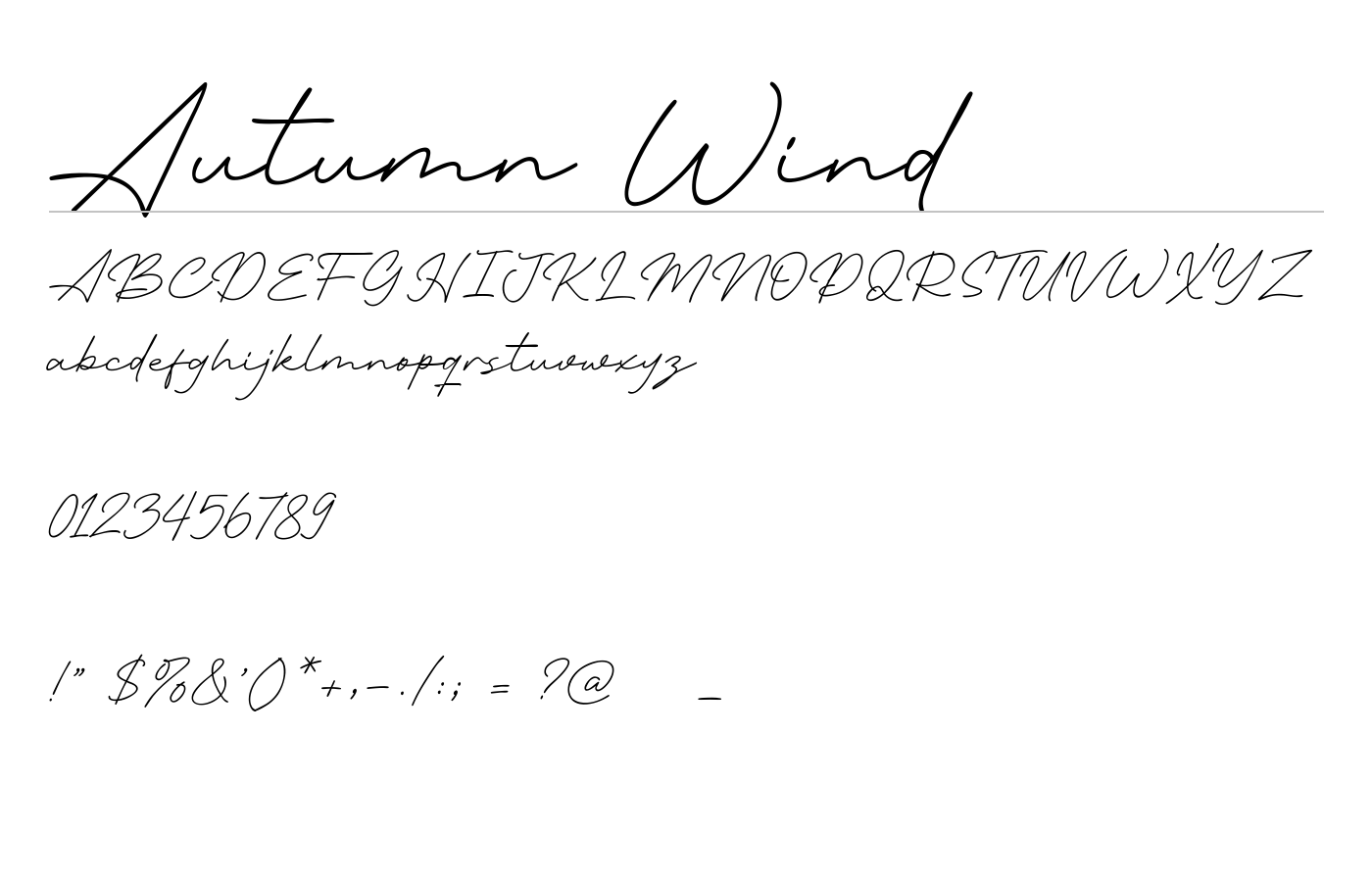
Autumn Wind is a delicate, handwritten script font with thin, flowing strokes that create an elegant and airy feel. Its light weight and natural, slightly slanted letterforms give it a personal, graceful touch, making it ideal for invitations, branding, and creative projects that want to convey sophistication and warmth. This font works best in headline or decorative uses where a soft, intimate style is desired.
Autumn Wind Font
About Autumn Wind Font